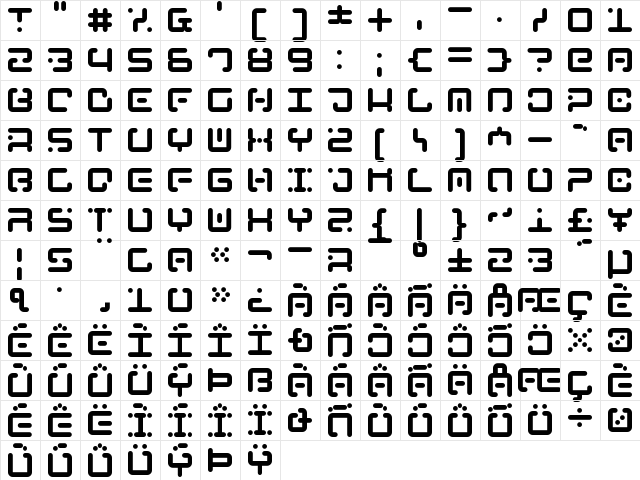
Ancient Venusian Regular
Design Context for Ancient Venusian Typeface
Ancient Venusian is a composed and adaptable typeface that performs quietly and consistently across a wide range of design contexts.